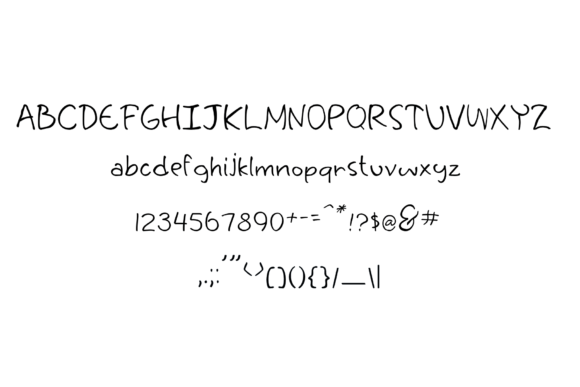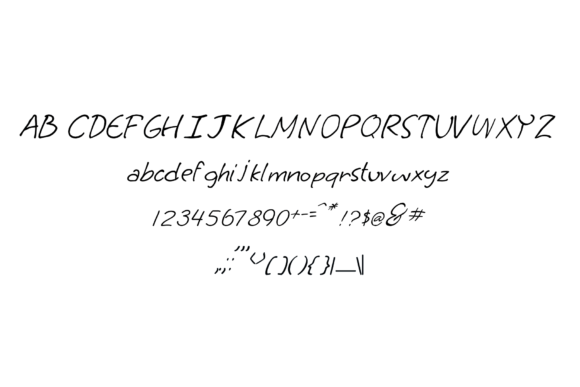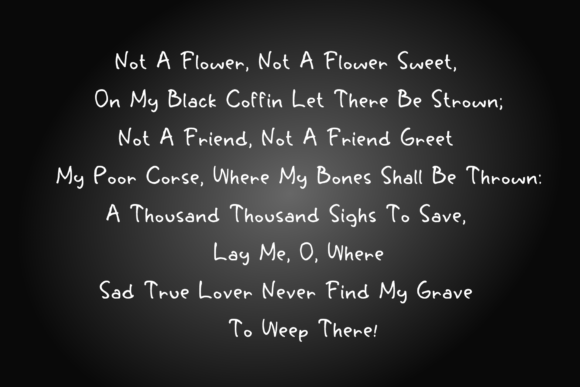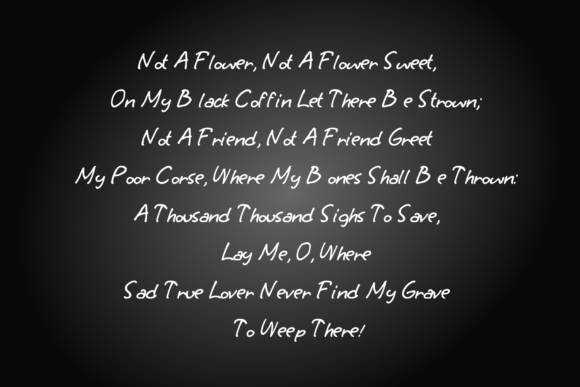
About Bunchy Font
Bunchy is not just a font; it’s a playful and friendly handwritten tool that injects a sense of fun into any design idea. Its unique charm serves as an inspiration for creating delightful and lovely designs that stand out from the crowd.
Whether you’re working on branding, advertising, or any creative project, Bunchy adds a touch of personality and warmth. The font’s handwritten style brings a friendly and approachable feel to your designs, making them more engaging and memorable.
Use Bunchy to infuse a sense of playfulness into your graphics. From logos to posters and everything in between, this font turns ordinary design concepts into true standouts. Its distinctive charm creates a visual appeal that captures attention and resonates with a lighthearted and friendly vibe.
Embrace the versatility of Bunchy in various design applications. From social media posts to packaging, Bunchy transforms the ordinary into the extraordinary. Its fun and friendly handwritten nature make it suitable for diverse projects, allowing you to express your creativity with a touch of whimsy.
Incorporate Bunchy into your designs to evoke a sense of joy and approachability. Whether you’re creating invitations, greeting cards, or any other stationery, this font adds a delightful touch that enhances the overall aesthetic.
The beauty of Bunchy lies in its ability to inspire and uplift your designs. It’s not just a font; it’s a creative companion that encourages you to explore new possibilities and infuse your projects with a cheerful and friendly atmosphere.
In conclusion, Bunchy is your go-to font for adding a dose of fun and friendliness to your designs. Let its unique charm inspire you to create lovely and standout visuals across a spectrum of creative endeavors.